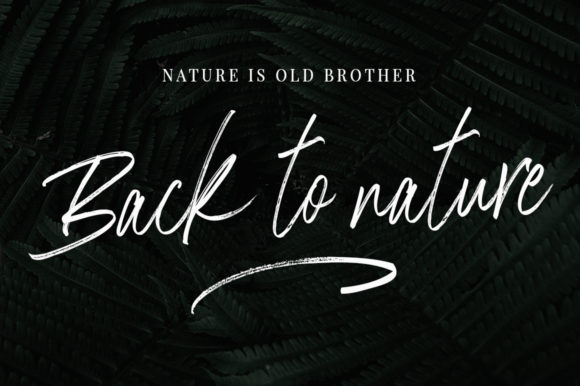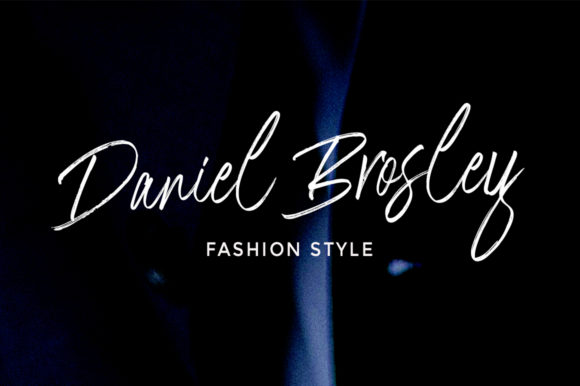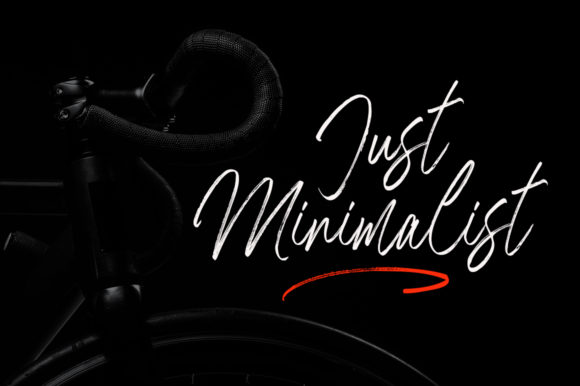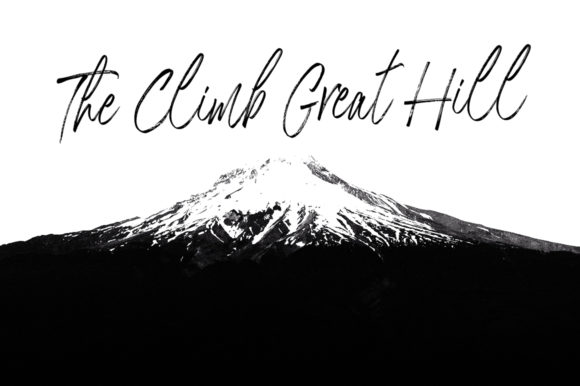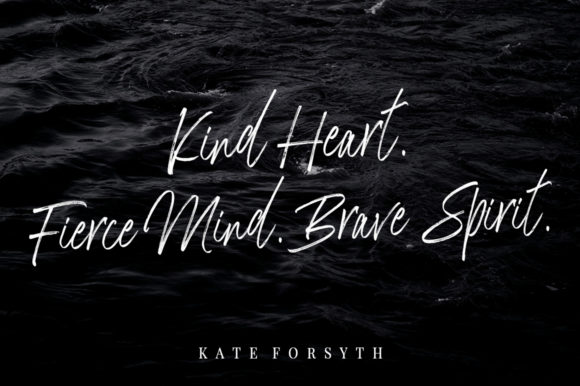
Introduction to Ragilone Font
Ragilone results out of a stunning pairing of a brush pen and pencil that makes it look incredibly endearing and authentic.
Use this gorgeous and unique handwritten font to bring any DIY project to life .
Key Features of Ragilone Font